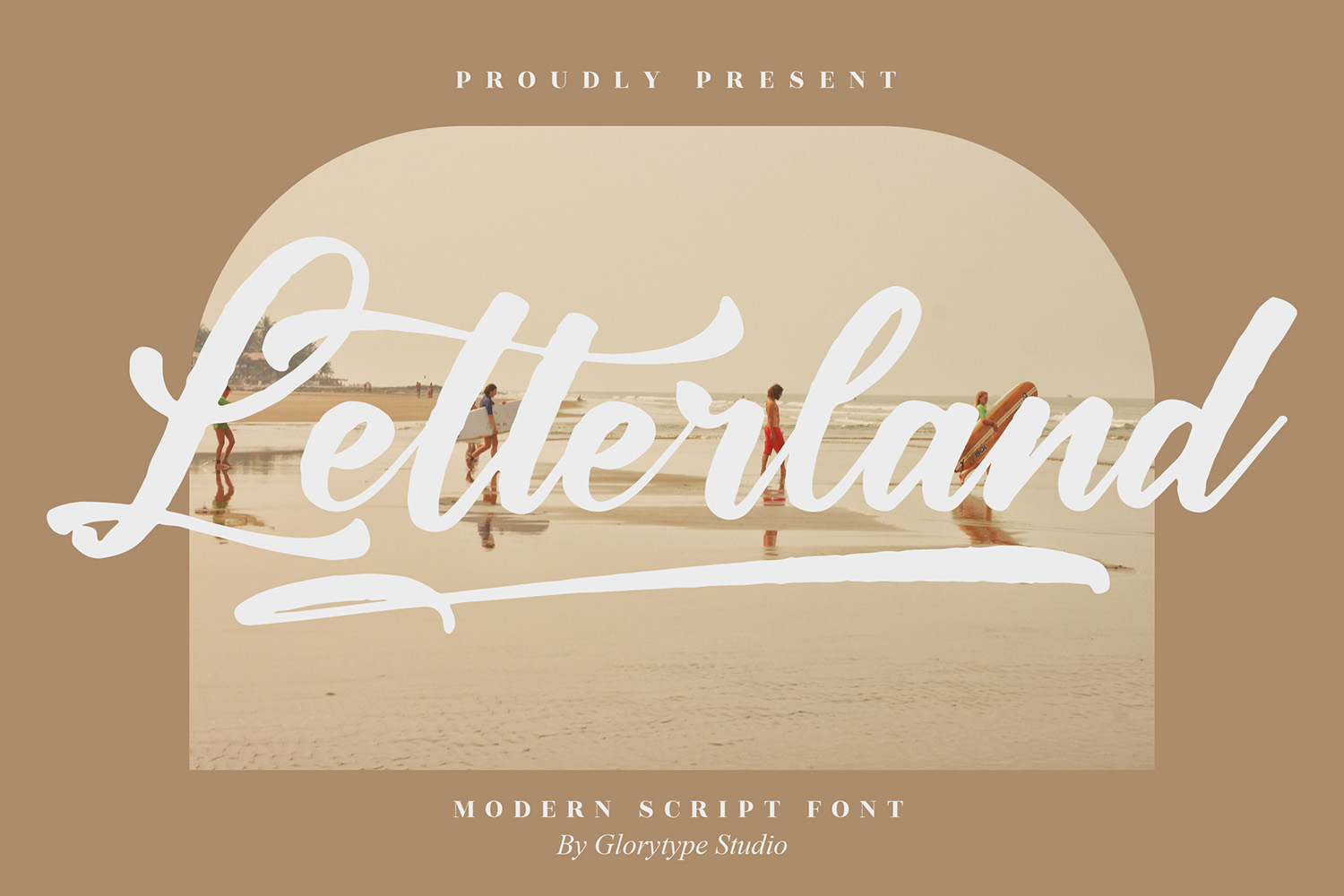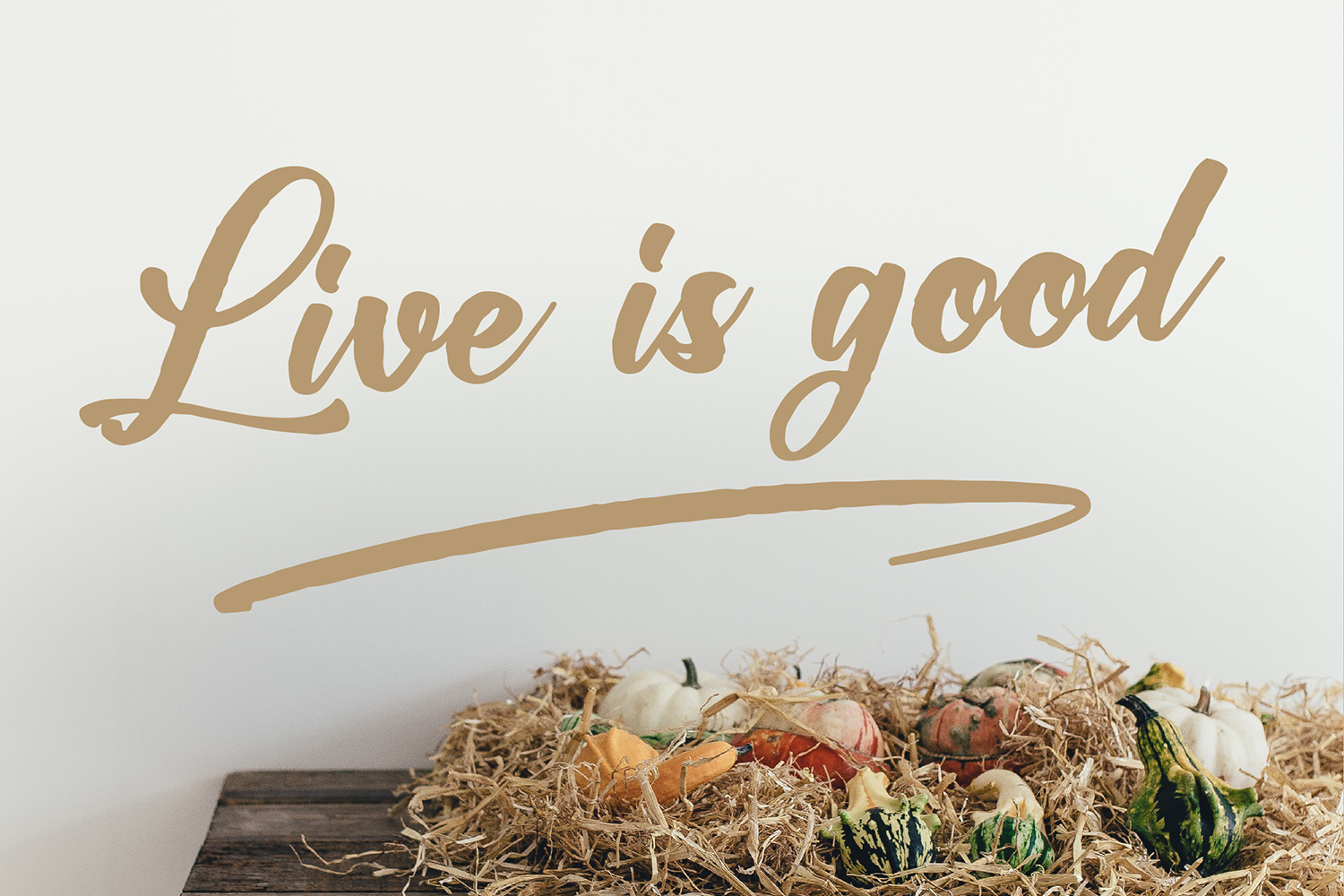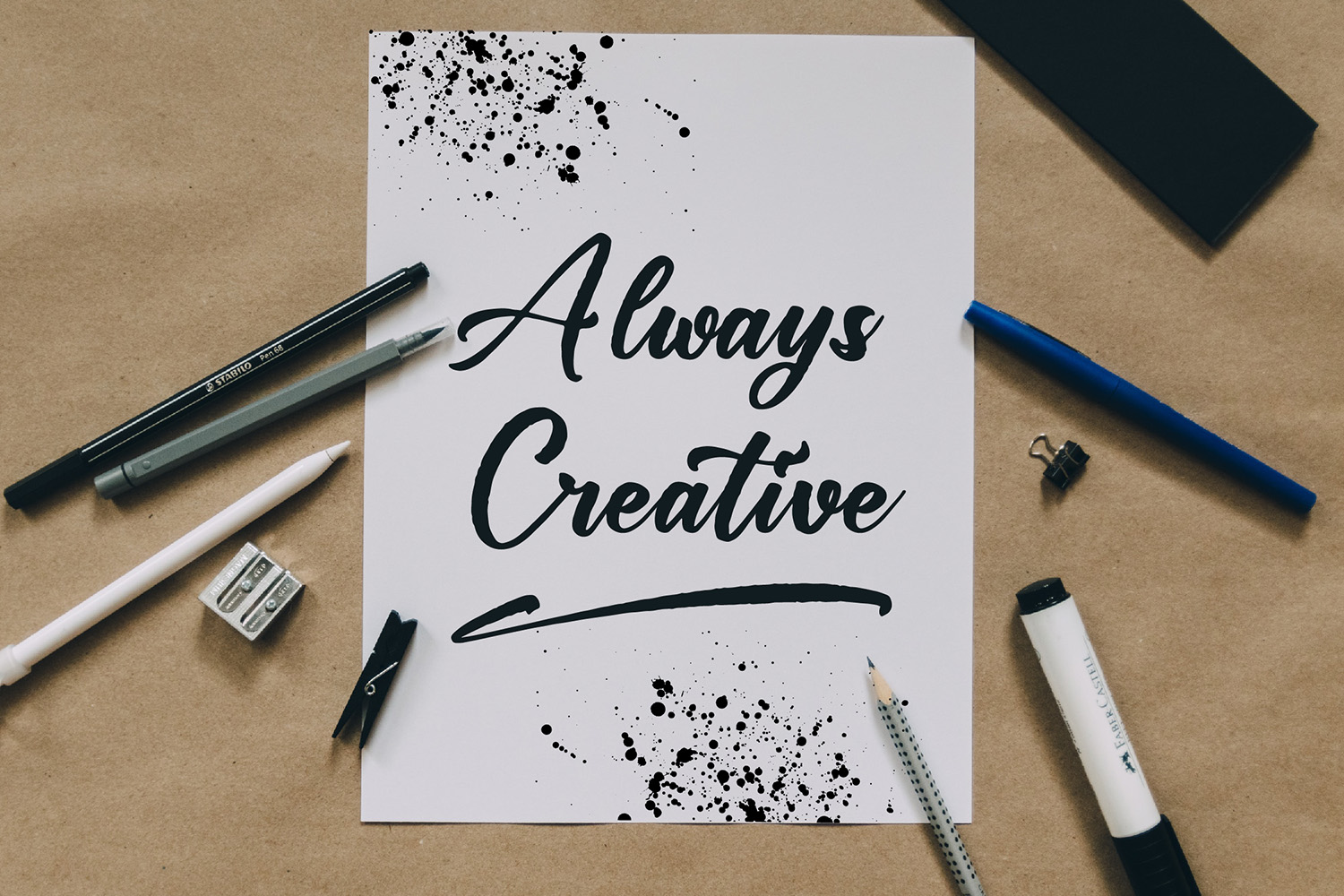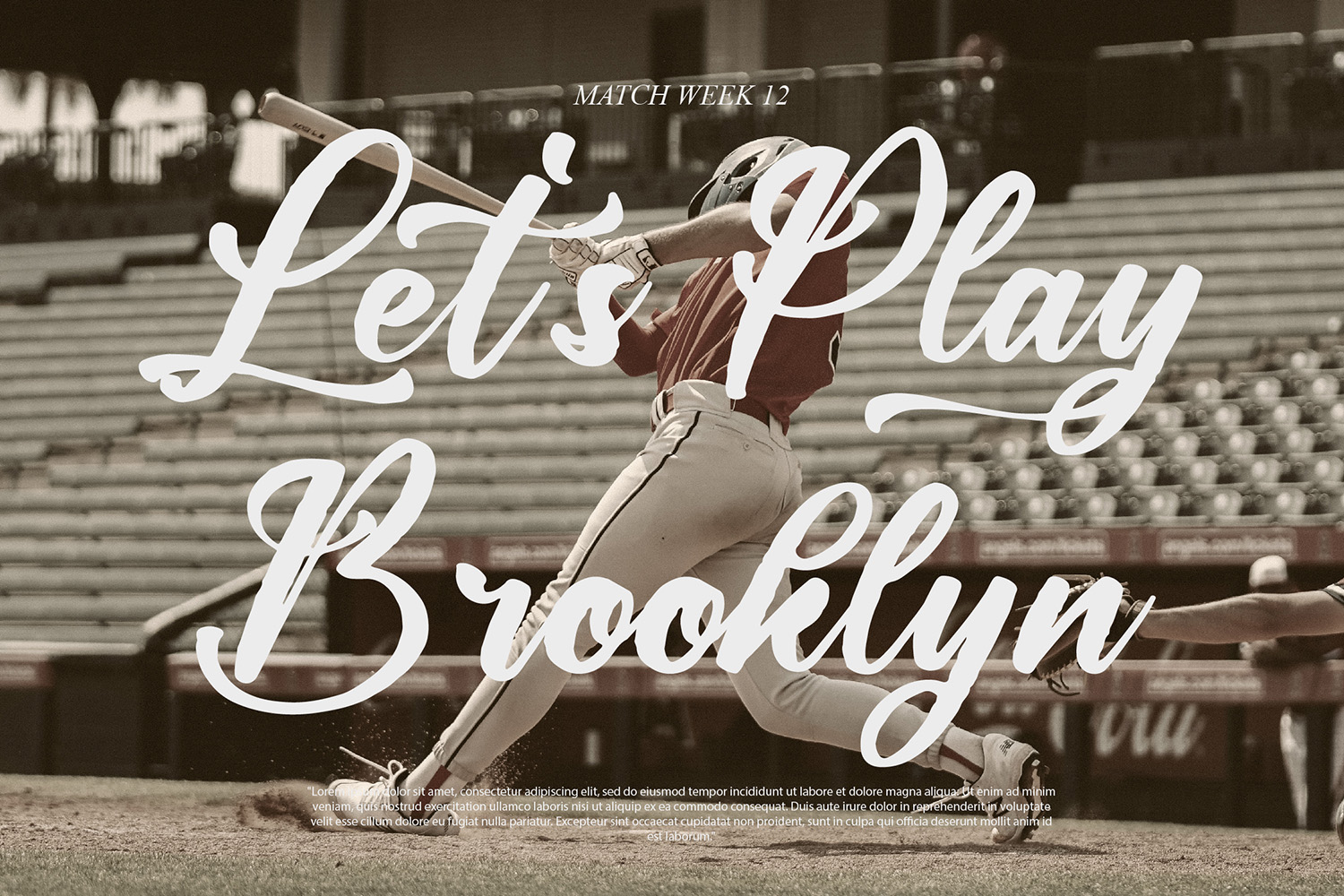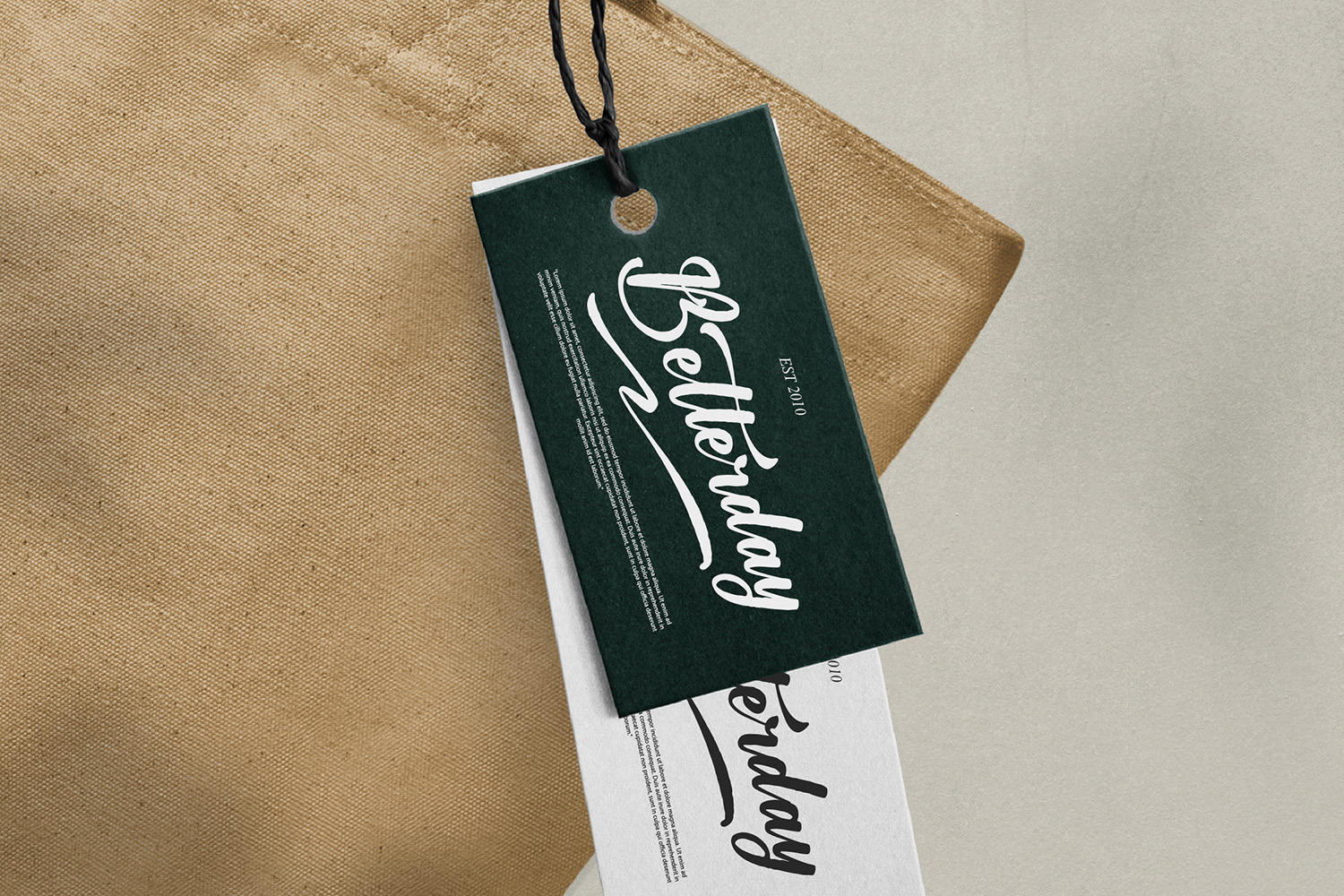
Letterland Free Font
Experience the grace of Letterland Free Font, a gentle, sophisticated, and fluid handwritten font. With its exquisitely crafted and harmonious characters, this typeface effortlessly complements a diverse array of design possibilities. This free typeface was designed by a talented Glorytype Studio. If you like it don’t forget to check out the full version.